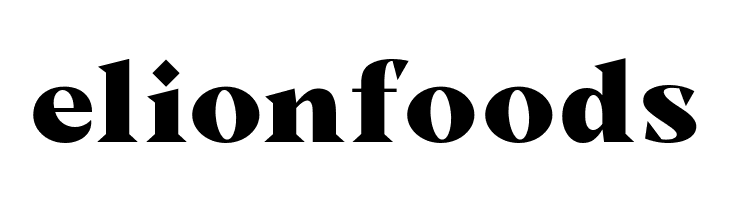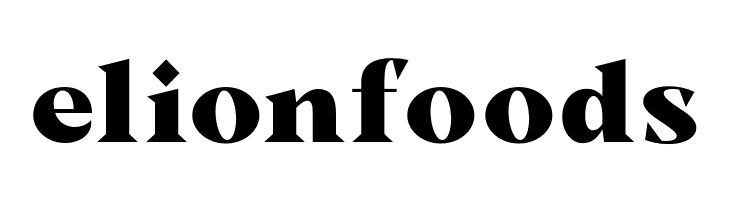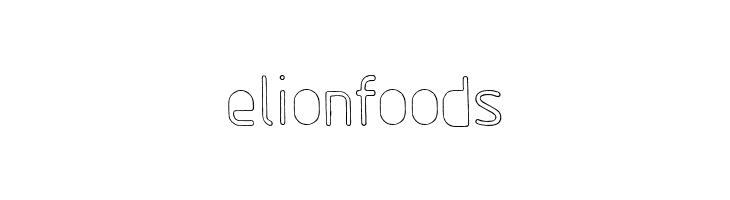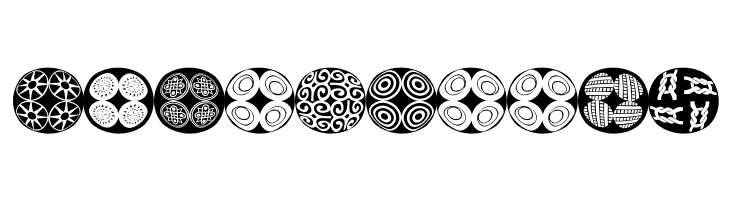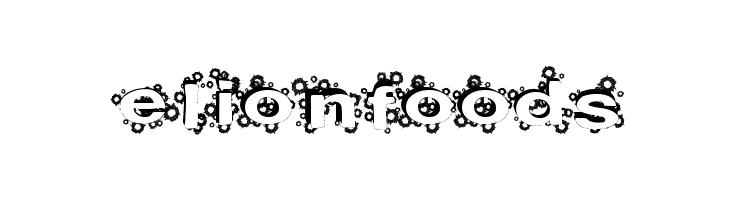
AlphaShapes xmas balls Font
Font by
fontsnthings
A festive font with characters inside Christmas ornament shapes.
HFF Cotton Balls Font
Font by Have Fun with Fonts
A playful, bold font with rounded, bubble-like characters perfect for fun projects.
Milk n Balls Black Demo Font
A bold serif font with a modern yet classic style, perfect for impactful designs.
Balls on the rampage Font
Font by Jacob Fisher - www.pizzadude.dk
A bold, dotted font with a pixelated, digital appearance.
Balls to the Wall Font
Font by Rob Dobi - Toxic Type - www.dobi.nu
A bold, distressed font with a grunge-like, graffiti-inspired style.
Balls of Bastille Font
A bold, modern font with thick, uniform strokes for impactful design.
Ballsye Font
Font by PutraCetol Studio
A bold, playful font with thick, rounded strokes and a bubbly appearance.
Locals Only Balls Font
A decorative font with sharp, angular lines and a gothic-modern fusion.
Milk n Balls Black Demo Font
A bold, high-contrast serif font with a modern yet classic appeal.
BN Suck My Balls Font
Font by Ben Nathan - www.hafontia.com
A playful, dotted font with a digital, pixelated appearance.
Potted Balls Font
Font by Jonathan Harris - www.tattoowoo.com
A dynamic, brush-like font with sharp, angular strokes and an artistic flair.
JI BowlingBalls Font
Font by Jeri Ingalls - littlehouse.homestead.com
A playful, bowling ball-inspired decorative font with bold, rounded characters.
BALLS BALLS AND MORE BALLS Font
A decorative sports-themed icon font featuring various balls and equipment.
Ballstomer Free Regular Font
A dynamic and elegant script font with flowing, slender letterforms.